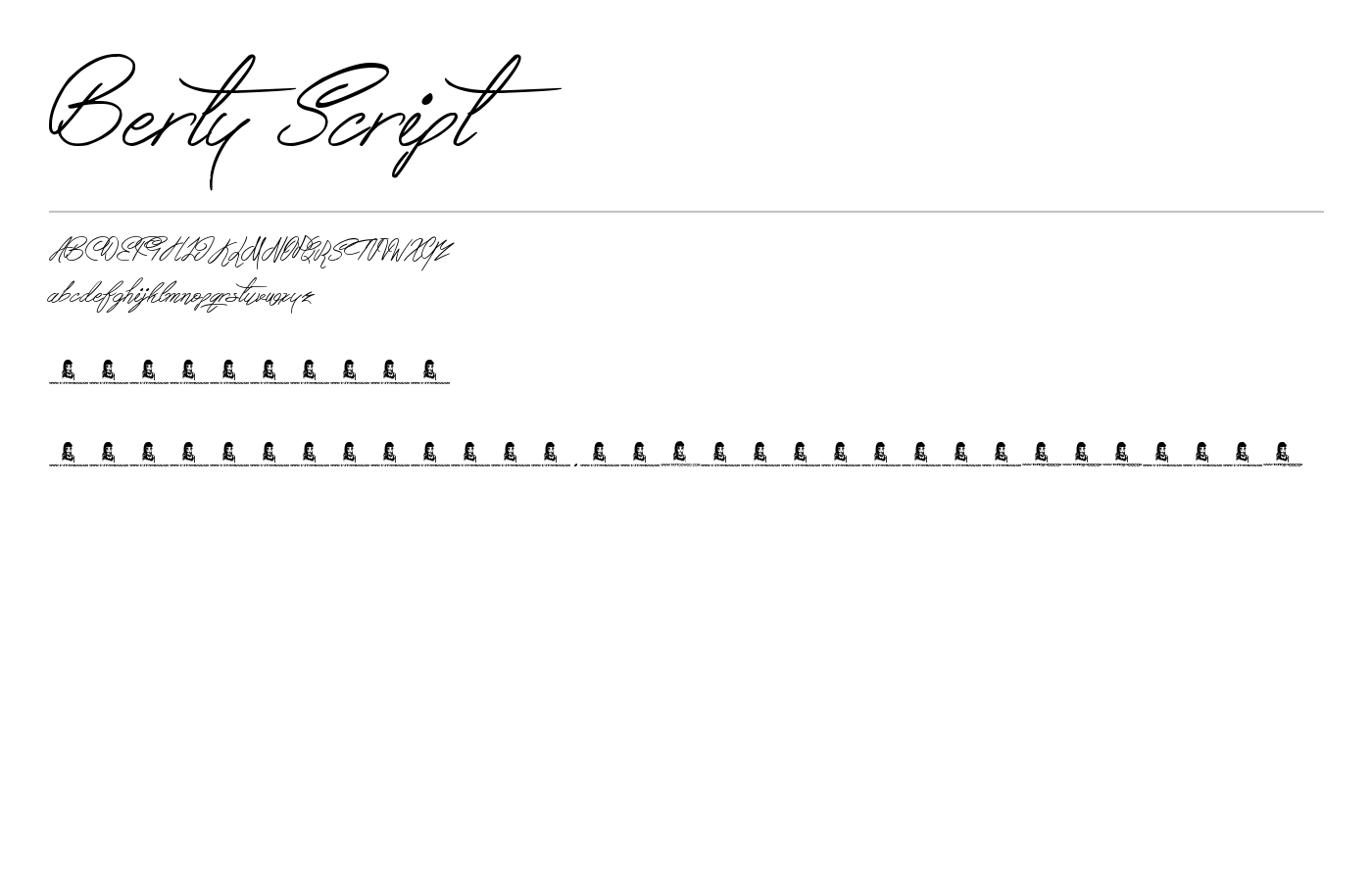
Berty Script is a delicate, elegant script font featuring slender, flowing strokes that mimic natural handwriting with a slight slant, creating a personal and sophisticated feel. Its light weight and graceful letterforms make it ideal for invitations, branding, and editorial designs where a touch of refinement and warmth is desired. This font works best in decorative uses rather than body text, lending a modern yet timeless charm to creative projects.
Berty Script Font
About Berty Script Font
| Font family | Berty Script Font |
| Designer | Jonathan S. Harris |